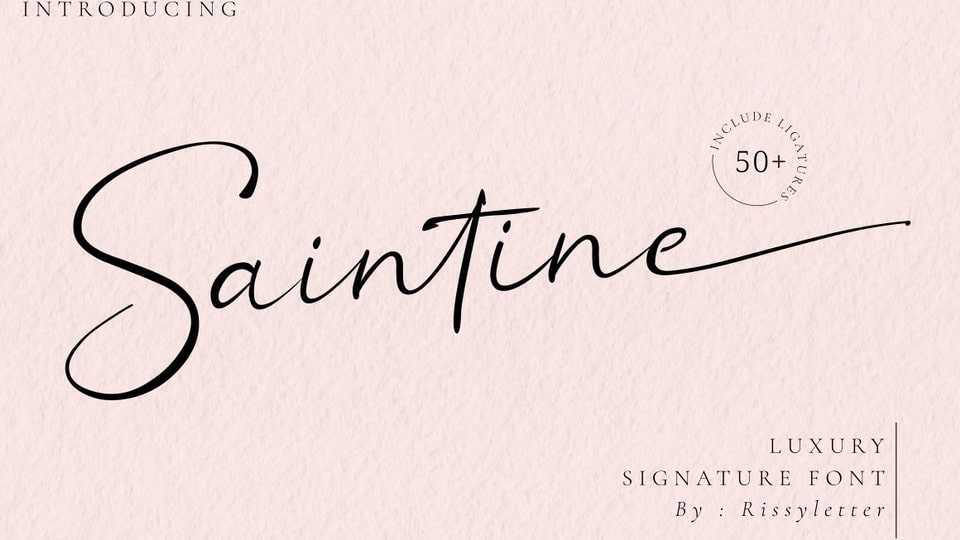
Saintine Signature Font › Fontesk
Download Saintine font, a stylish, elegant and modern signature script typeface. Saintine font will look awesome and amazing in many ways to your latest project.
Designer: Rissyletter Studio